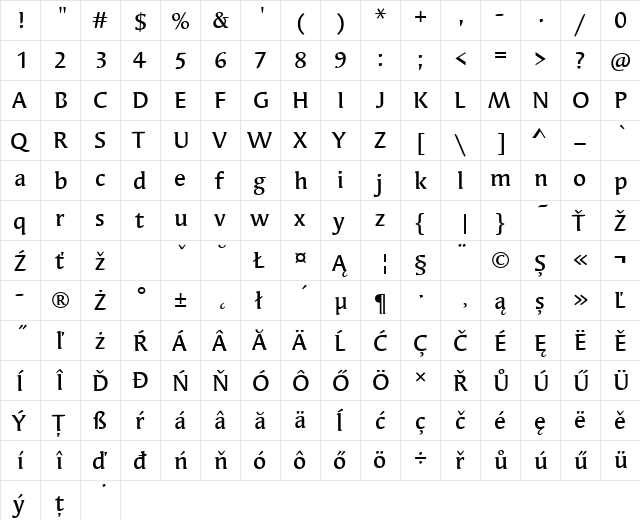
SyndorItcTEEMed Regular
Design Context for SyndorItcTEEMed Typeface
SyndorItcTEEMed takes a measured approach to typography — its balanced proportions and neutral character make it a reliable workhorse for both digital and print work.